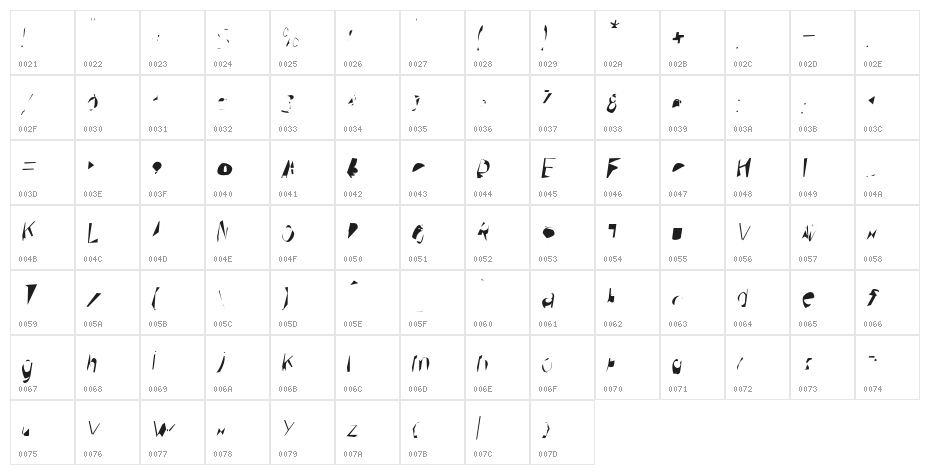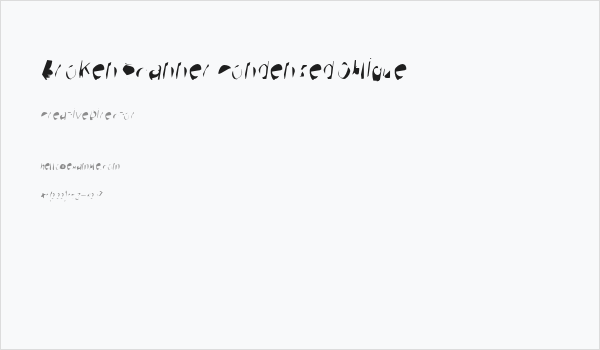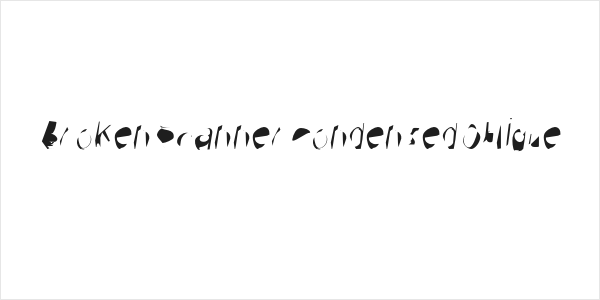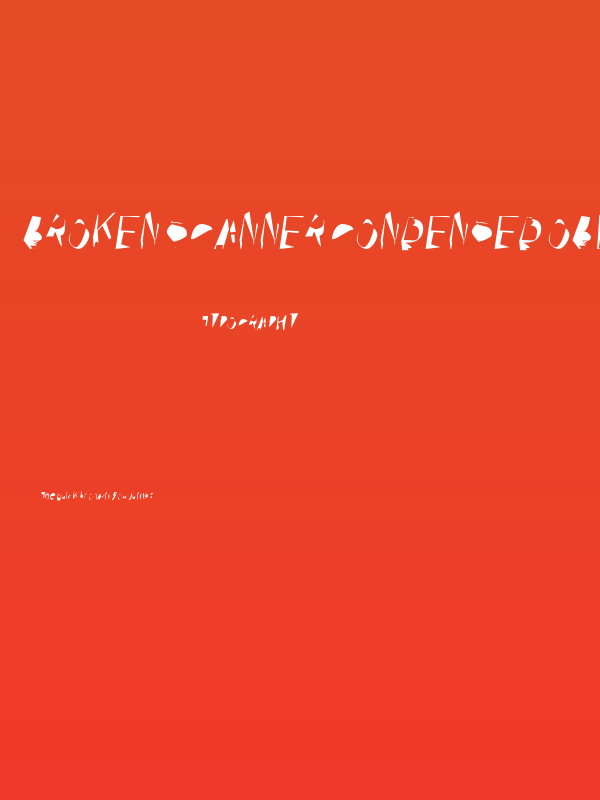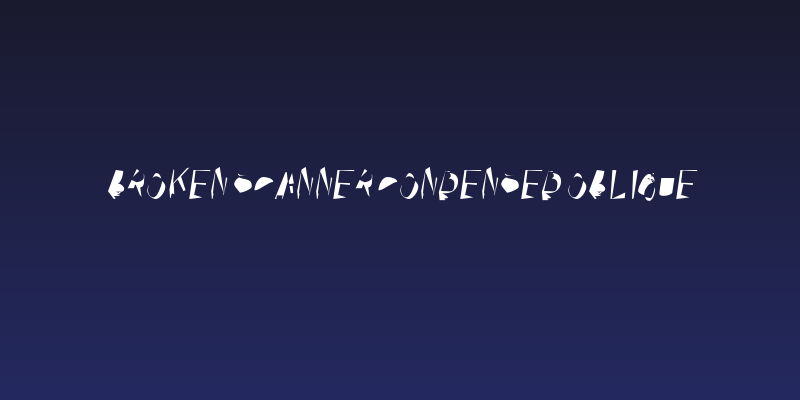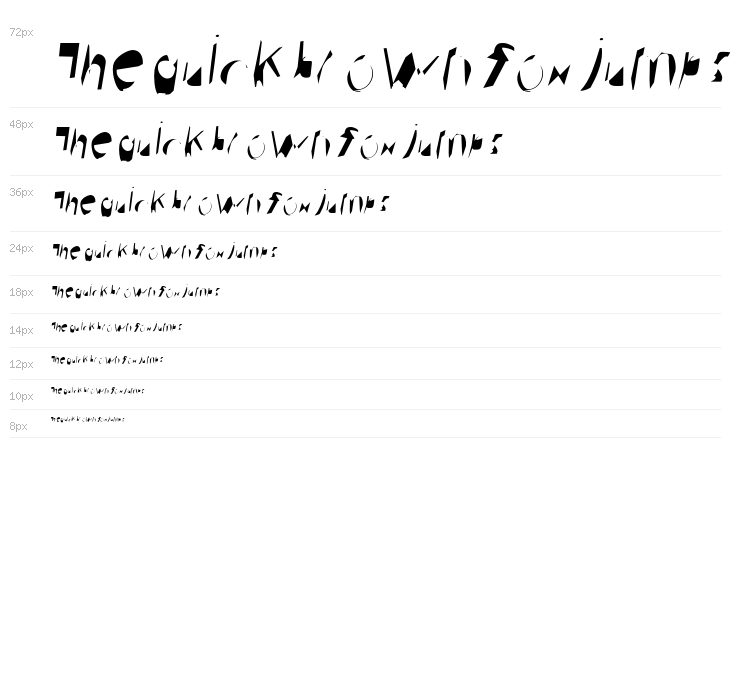
Broken Scanner Condensed Oblique Font
Broken Scanner Condensed Oblique Description
This font features a highly distorted and fragmented design, reminiscent of a glitch or broken scanner effect. The characters are sharply angled and irregular, with parts of each letter appearing to be missing or misaligned. This creates a chaotic and dynamic visual style that is both unique and eye-catching. The font maintains a consistent slant, giving it an oblique appearance, while the overall structure of each character remains recognizable despite the distortion. The combination of sharp edges and missing segments gives the font a modern, edgy feel, suitable for projects that aim to convey a sense of disruption or avant-garde aesthetics.
| Proposed Projects | Ideal for digital art, experimental design projects, album covers, or any creative work that seeks to convey a sense of disruption or modernity. |